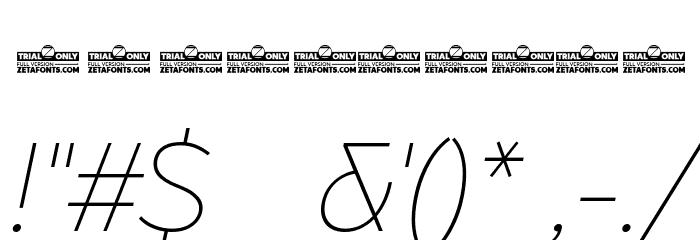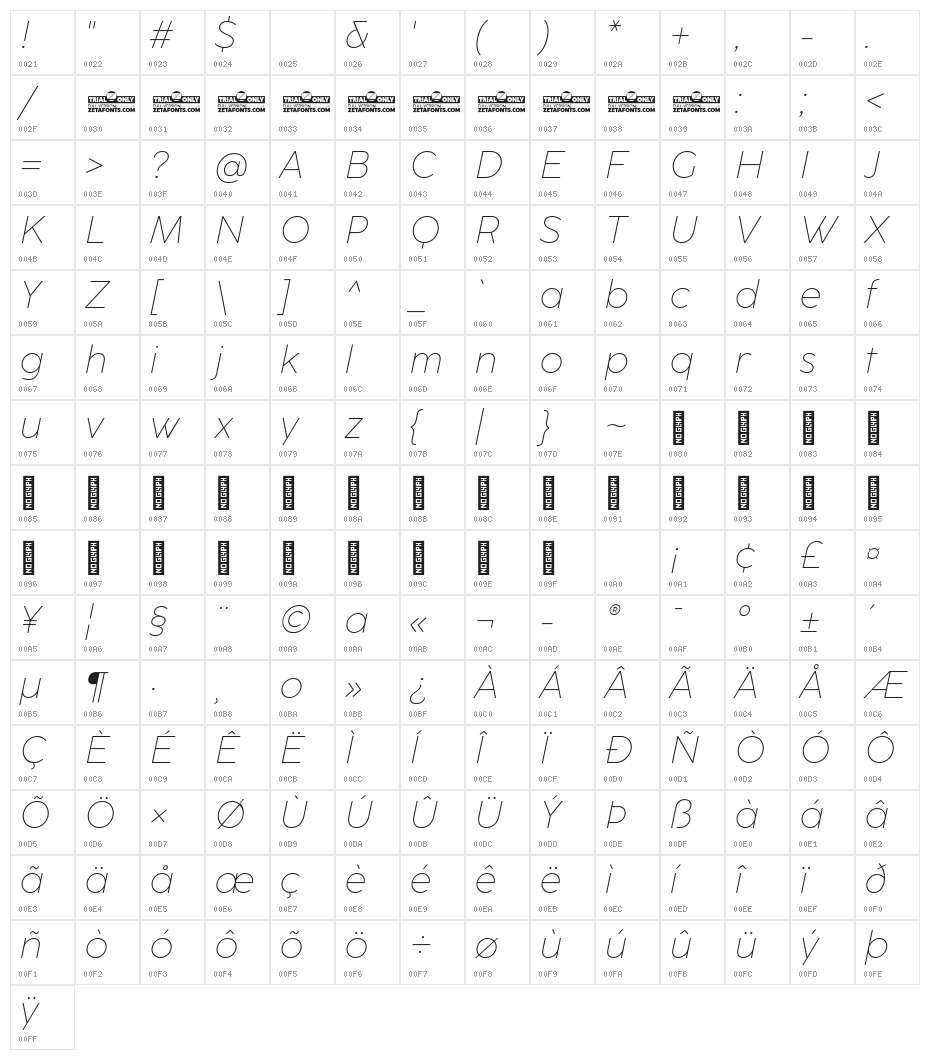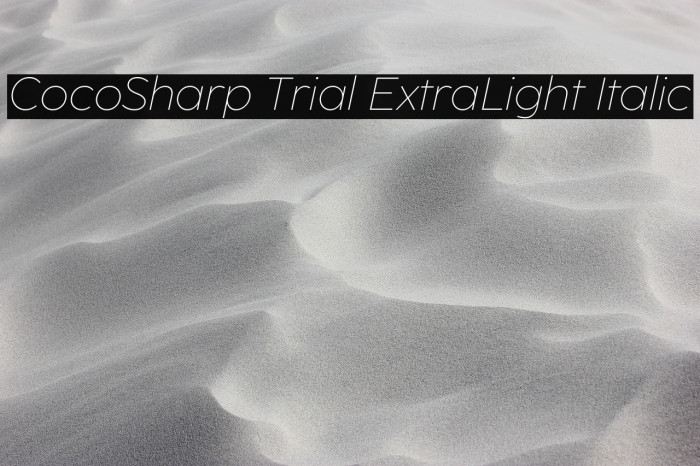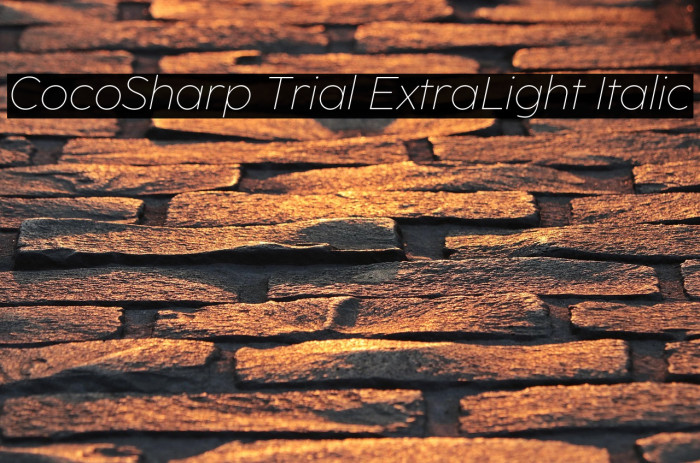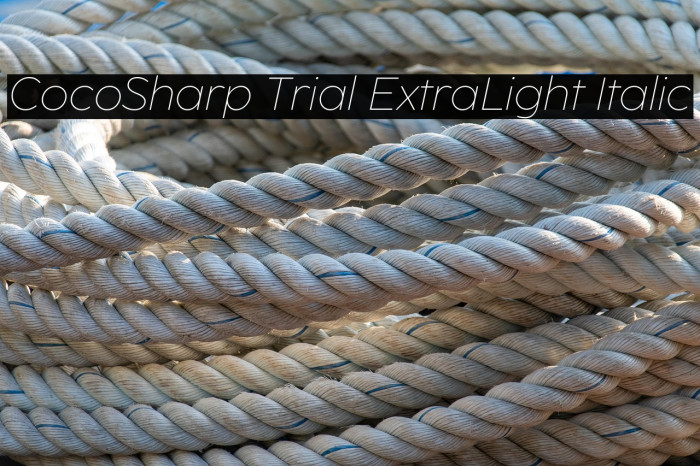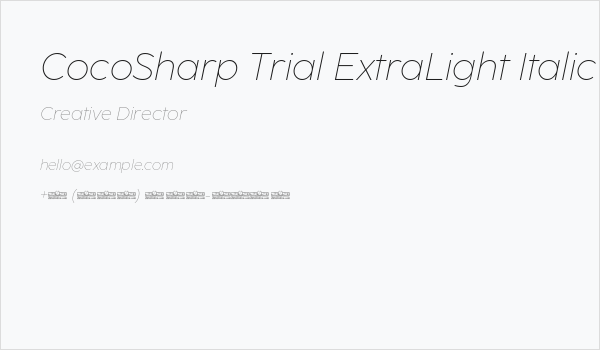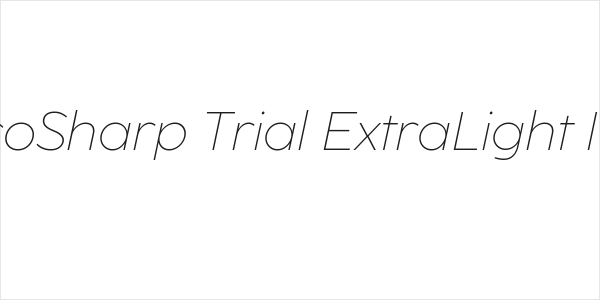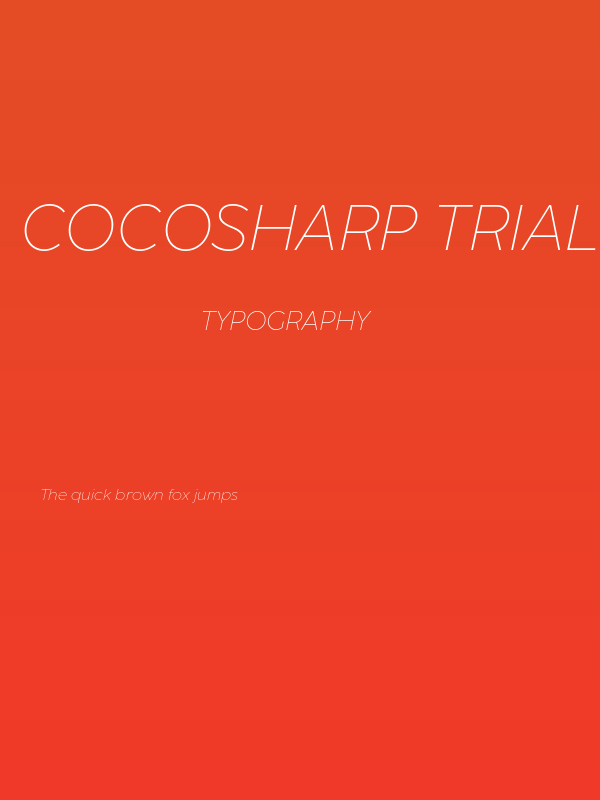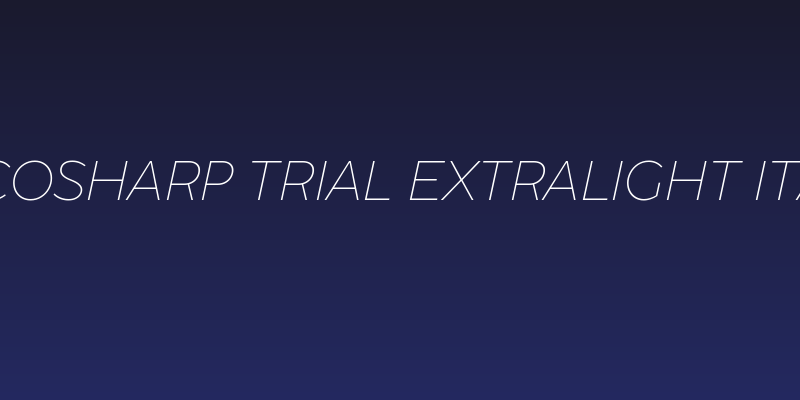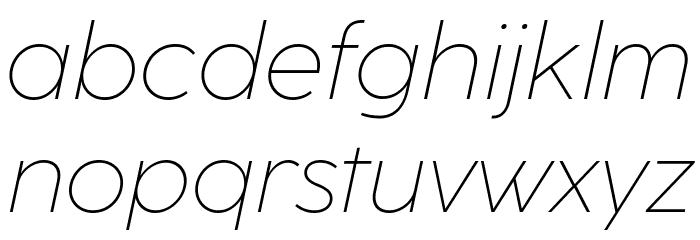
CocoSharp Trial ExtraLight Italic Font
CocoSharp Trial ExtraLight Italic Description
This font features a sleek and modern design with an extra-light weight, giving it a delicate and airy appearance. The italic style adds a sense of elegance and fluidity to the characters. Each letter is crafted with precision, showcasing clean lines and a minimalist aesthetic. The font maintains a consistent stroke width throughout, contributing to its refined and sophisticated look. Its simplicity makes it versatile for various design applications, while the italic slant provides a dynamic and engaging visual appeal.